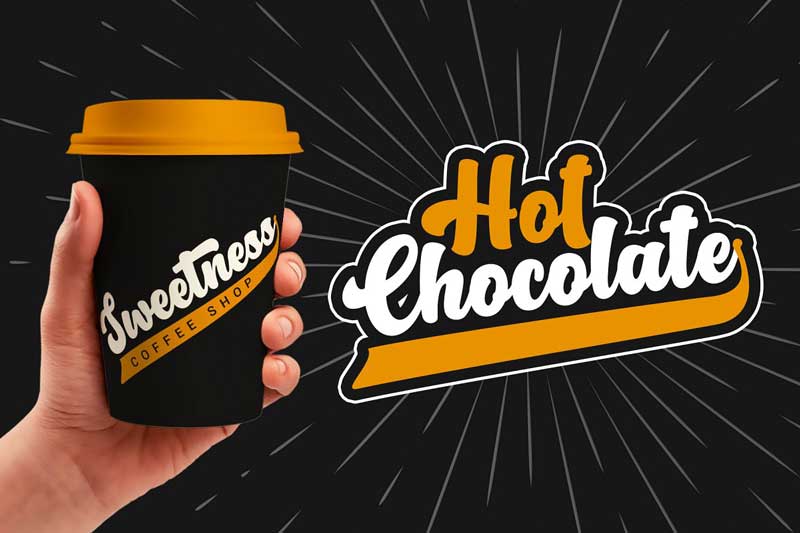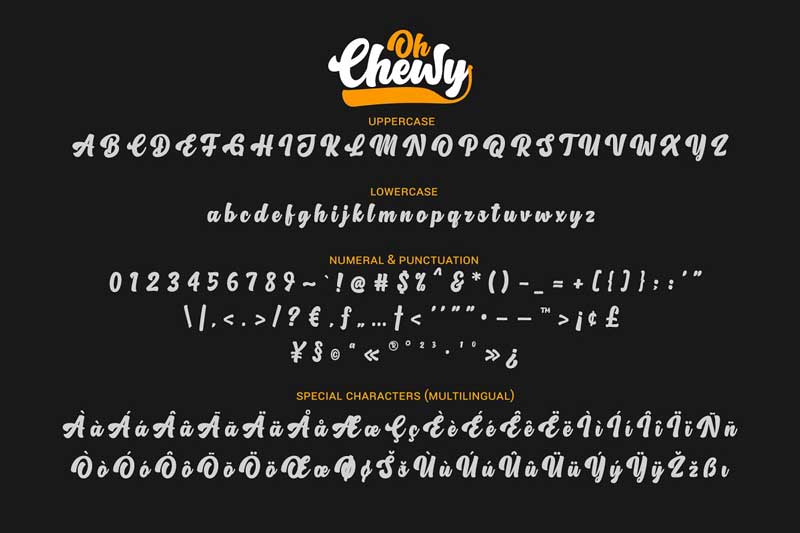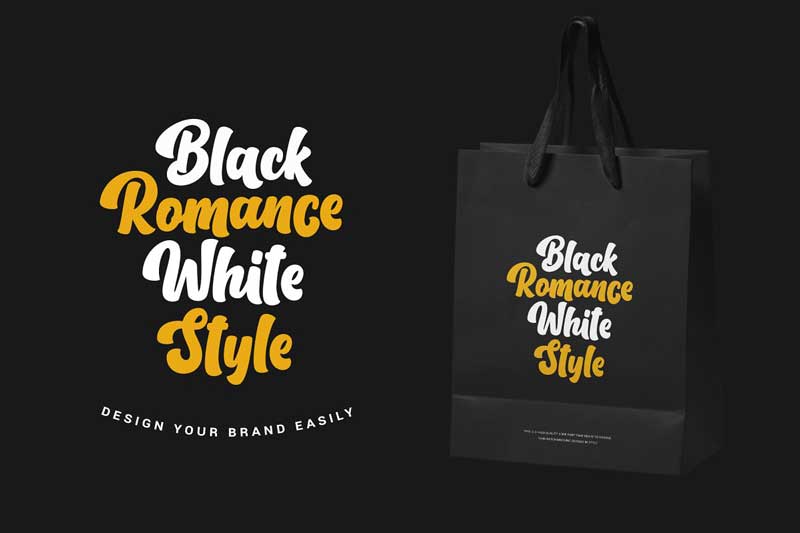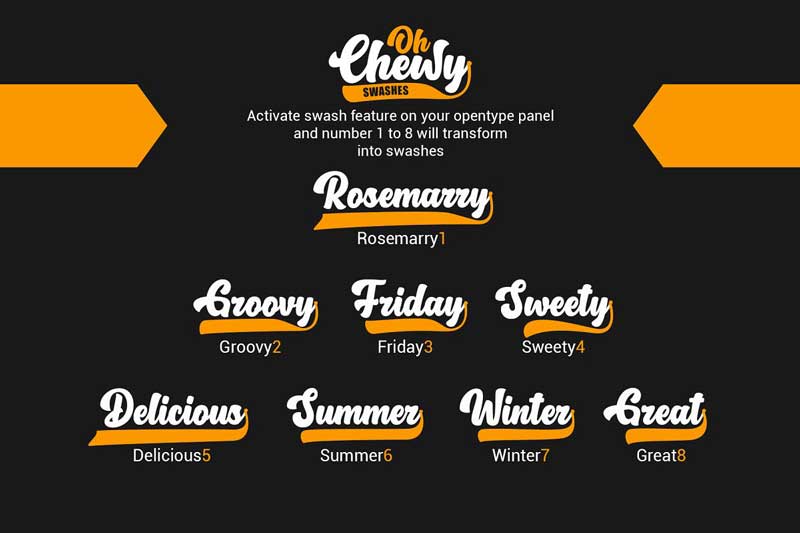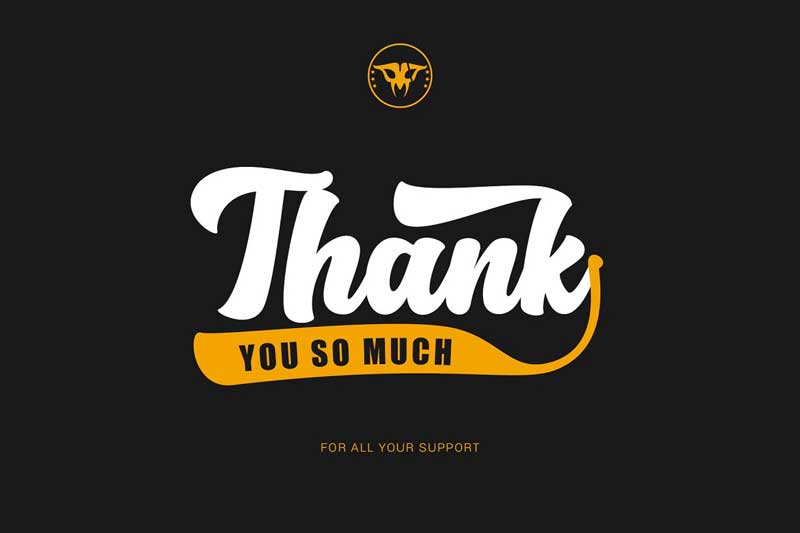
Oh Chewy a sweet bold script font with alternates and lovely swashes. It has fat strokes and a smooth edge, that’s great for food branding, retro style, and eye-catching logo.
• Uppercase
• Lowercase
• Numeral & Punctuation
• Special Character (Standard Multilingual)
• Stylistic Alternates
• Stylistic Set (SS01 & SS02)
• Swash
• Access All Alternates